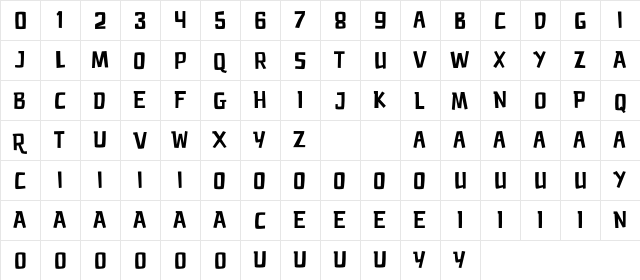
PAMPARAY Demo Regular
Design Context for PAMPARAY Demo Typeface
PAMPARAY Demo is a composed and adaptable typeface that performs quietly and consistently across a wide range of design contexts.
Pro Tip: Use PAMPARAY Demo in both headline and body roles to test its range before committing to a single application.